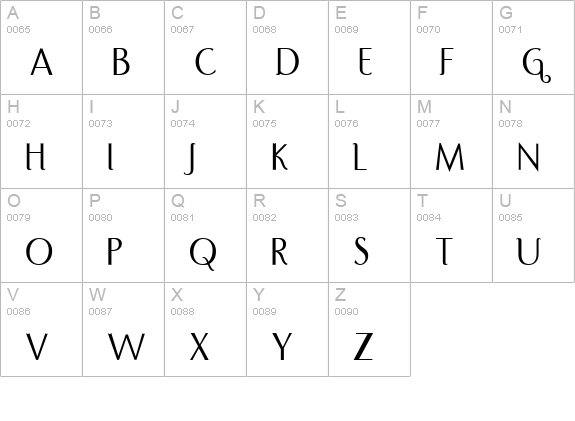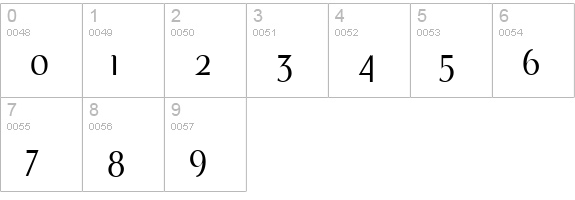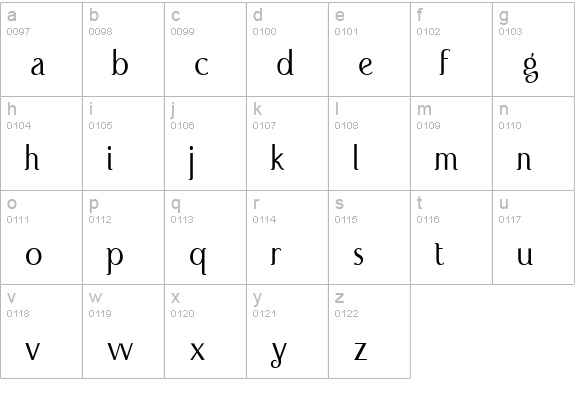
Port Credit Font Details
Port Credit font is a stylish and versatile typeface that combines modern elegance with a touch of sophistication. Its sleek and clean lines make it perfect for a wide range of design projects, from branding to editorial design. The font's unique character adds a sense of creativity and individuality to any piece of work. What makes Port Credit font even more appealing is that it is available for free download at FontsMarket.com. This means you can easily access this high-quality font without any cost, making it a valuable resource for designers and creatives looking to enhance their projects. With its timeless appeal and modern flair, Port Credit font is sure to become a favorite in your font library.